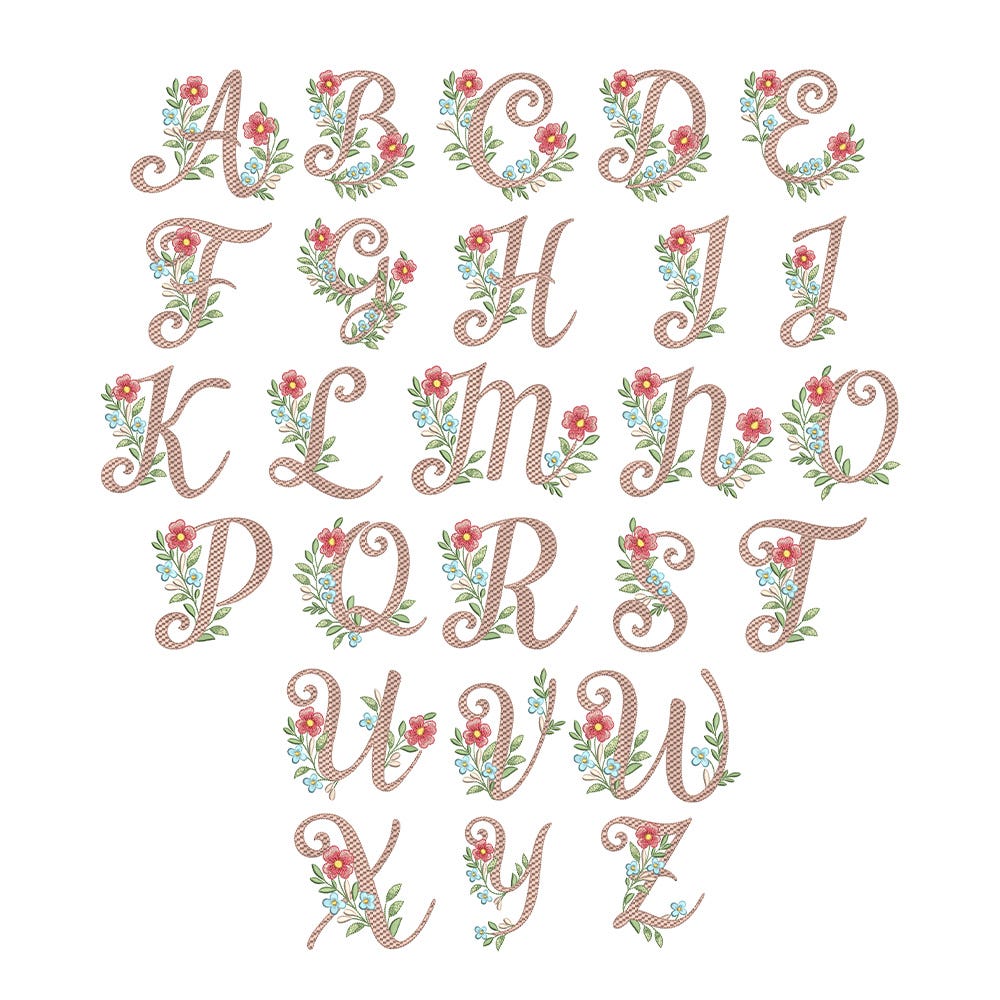
Flower Vines Motif Fill Monogram Embroidery Font
Add chic elegance to your projects with our Flower Vines Monogram. This embroidery-only monogram features a beautiful blend of stitch types to create script letters with a checkered motif fill, embellished with beautiful florals and vines. This monogram exudes chic sophistication and is perfect for wedding gifts, seasonal decor, and so much more!